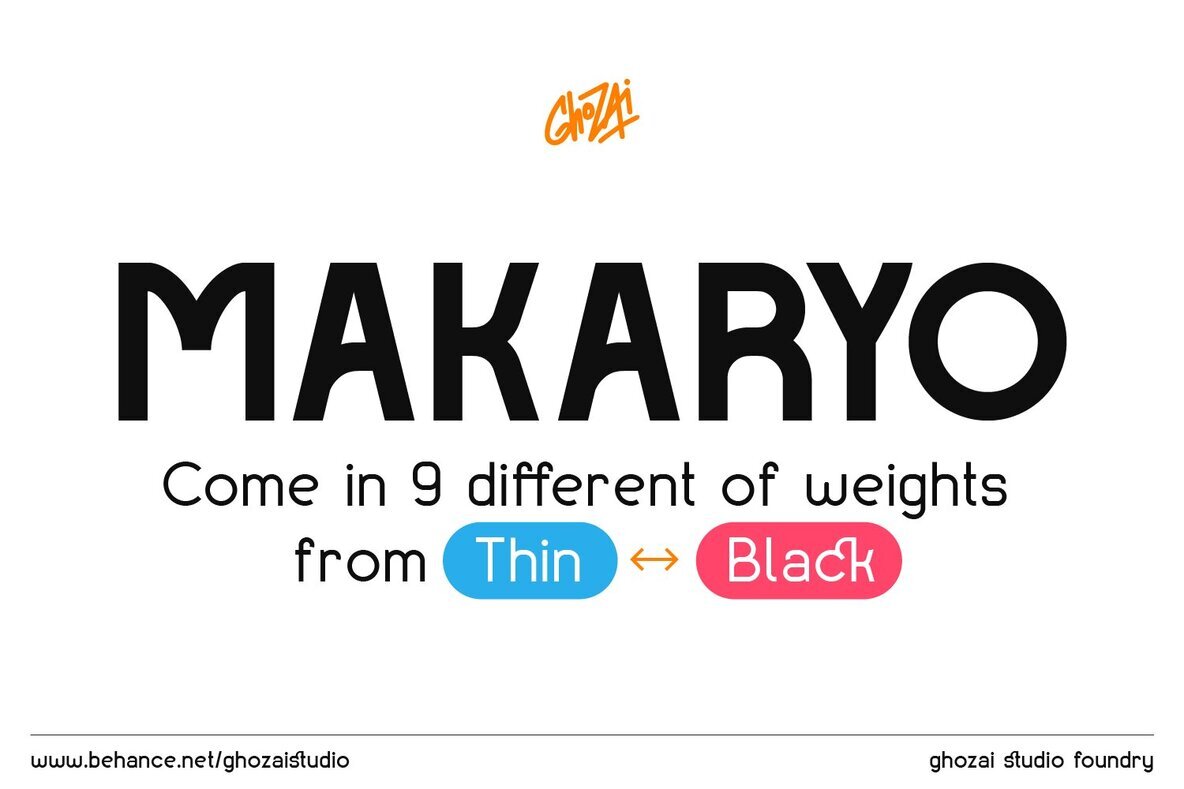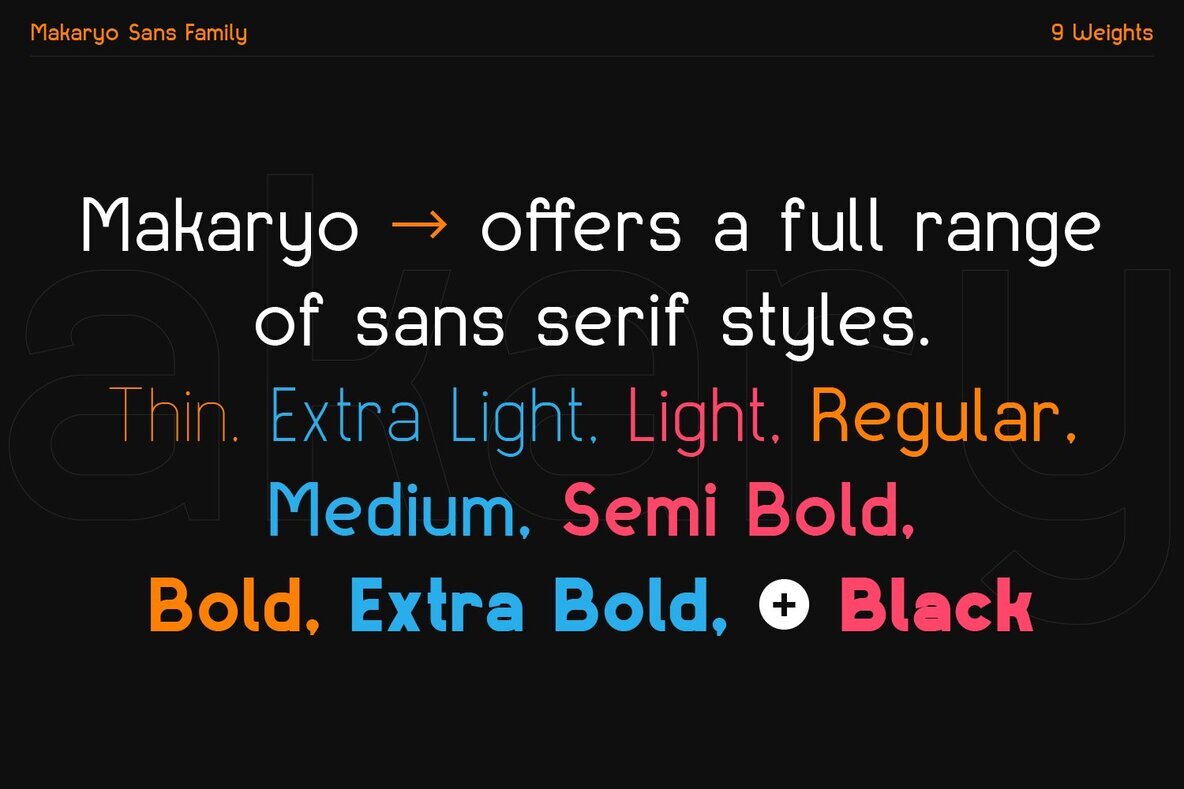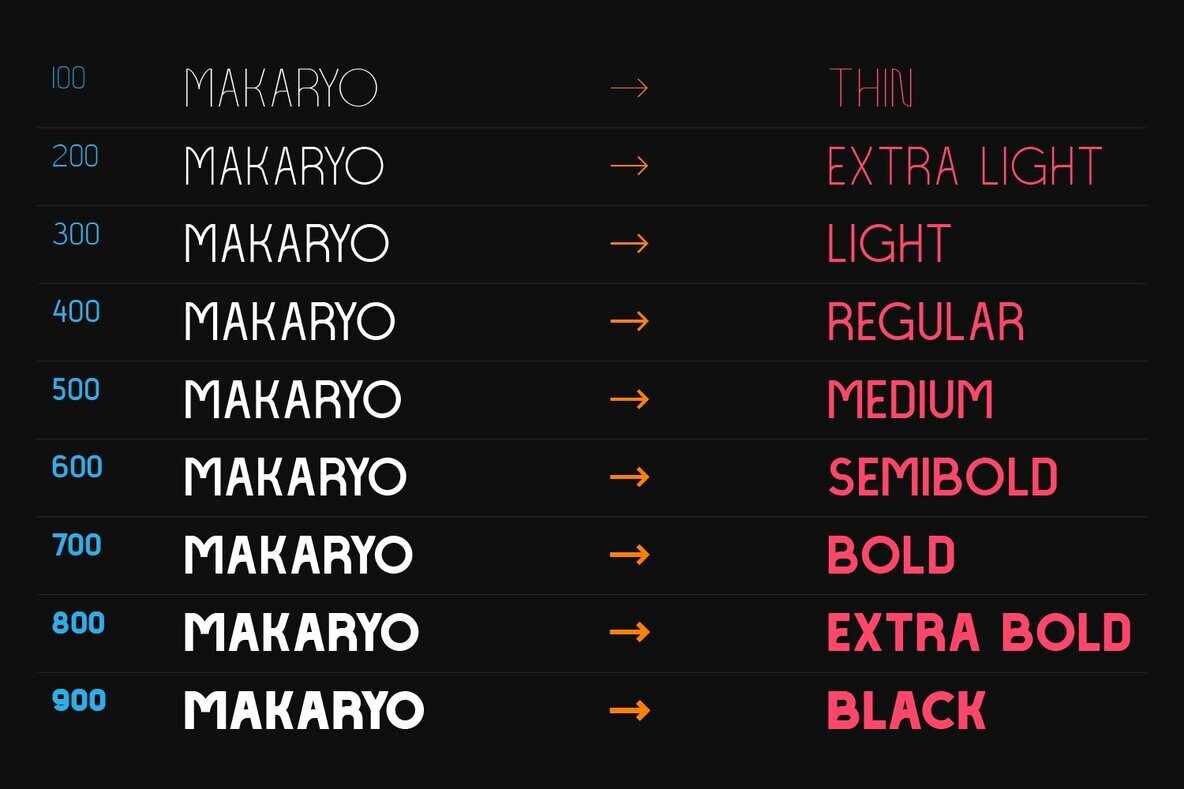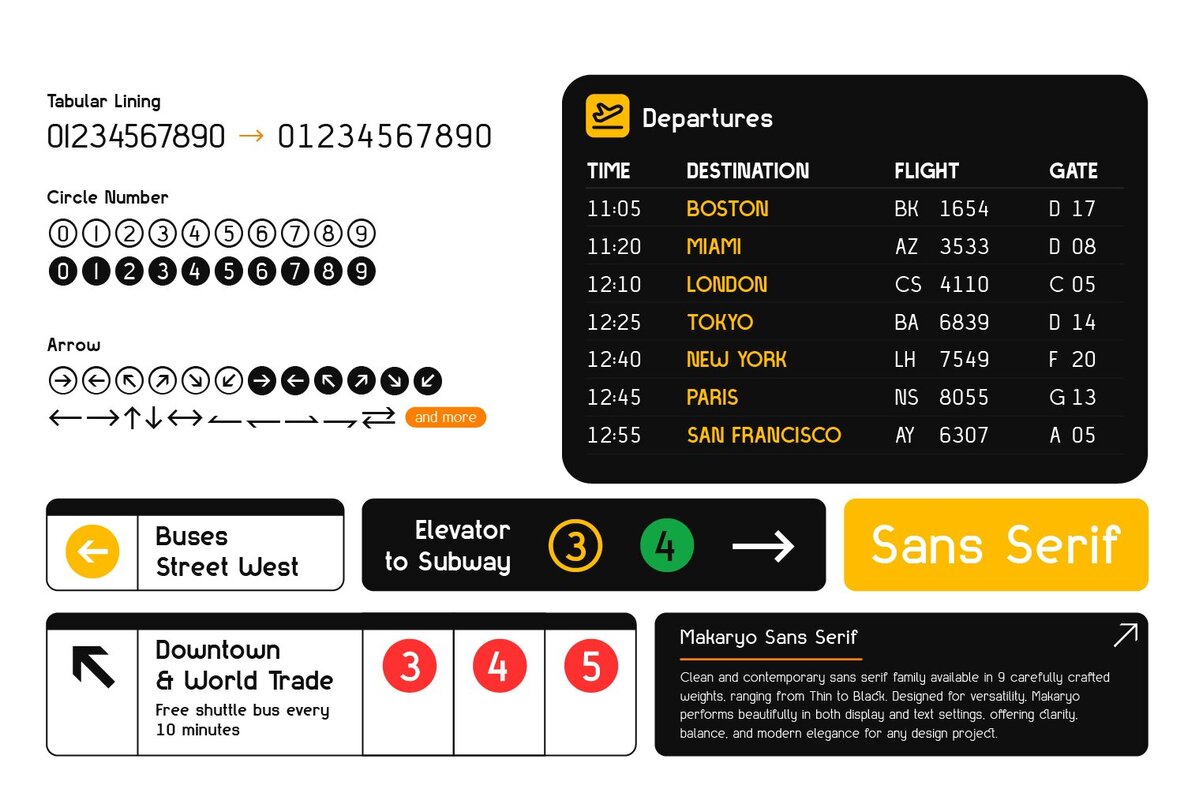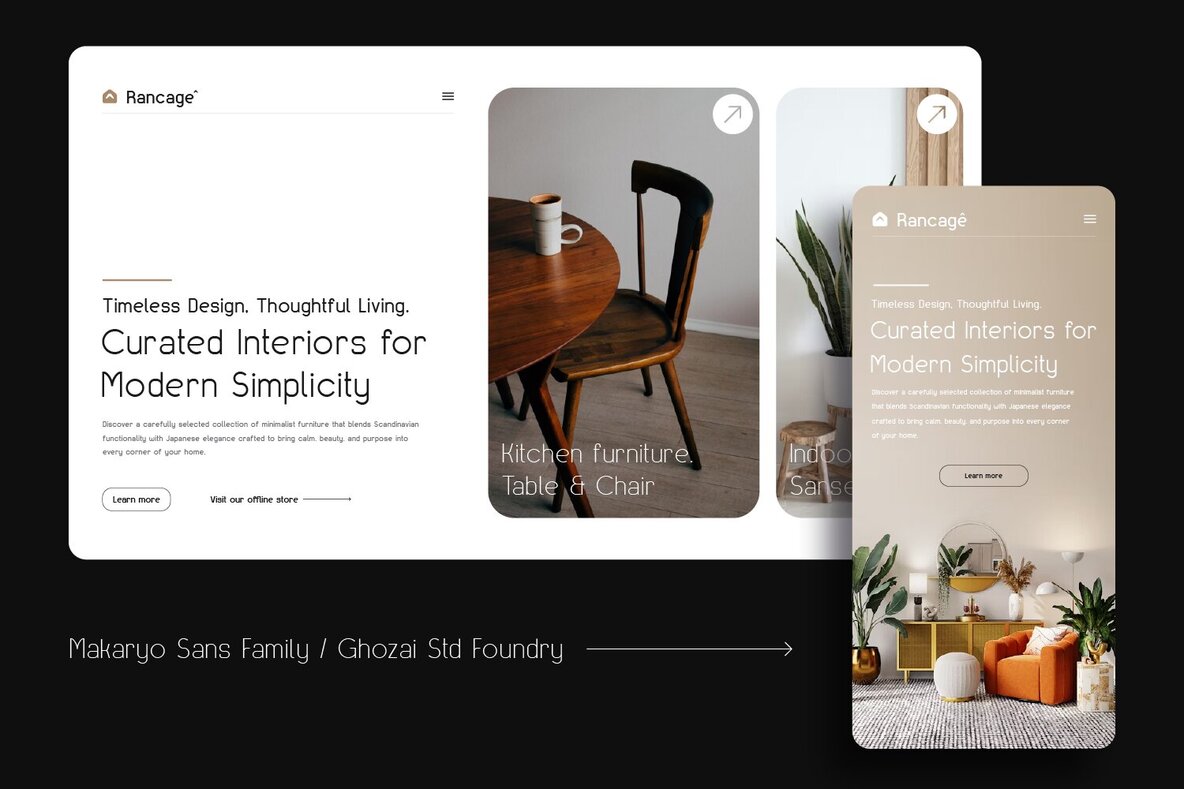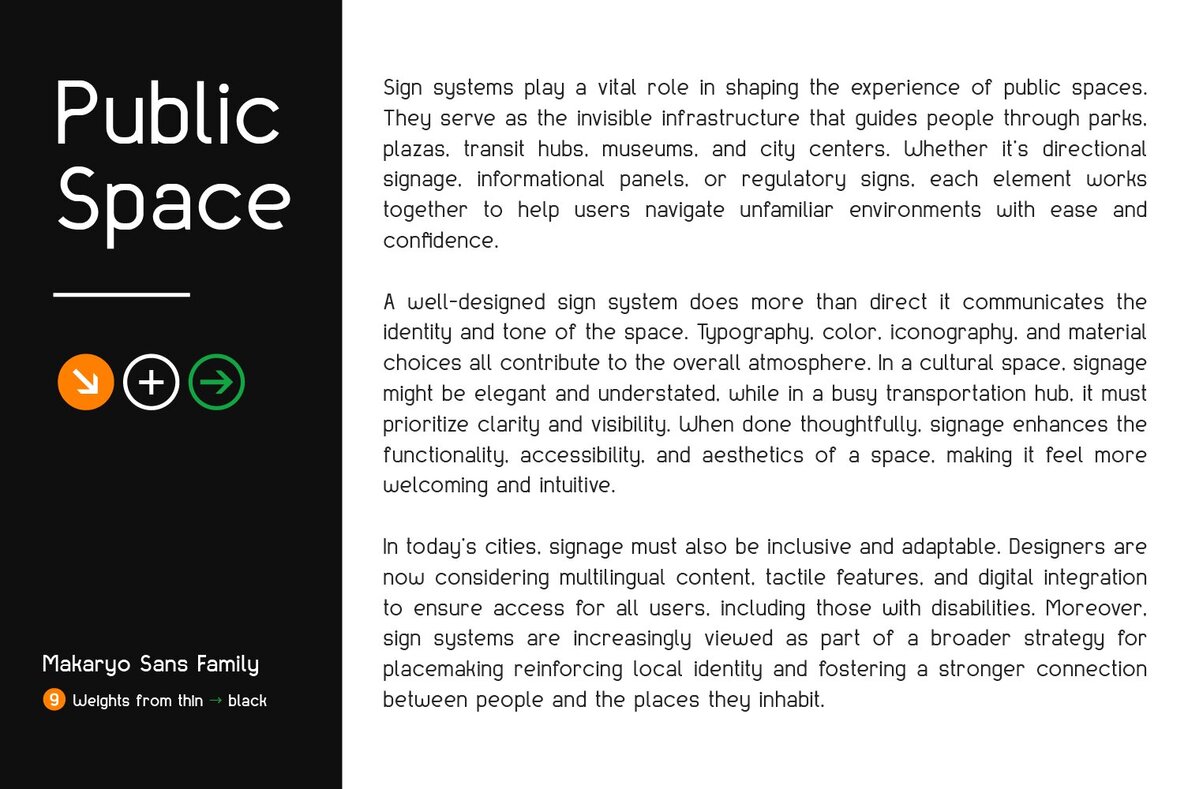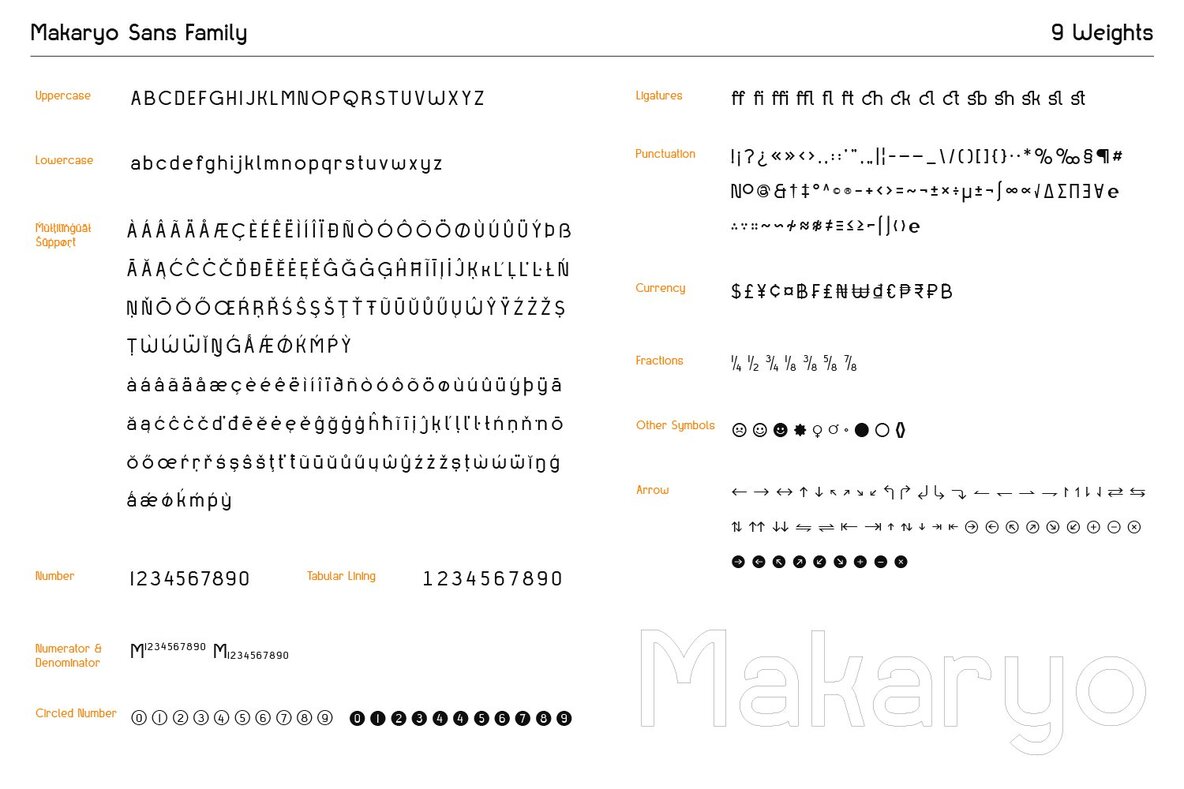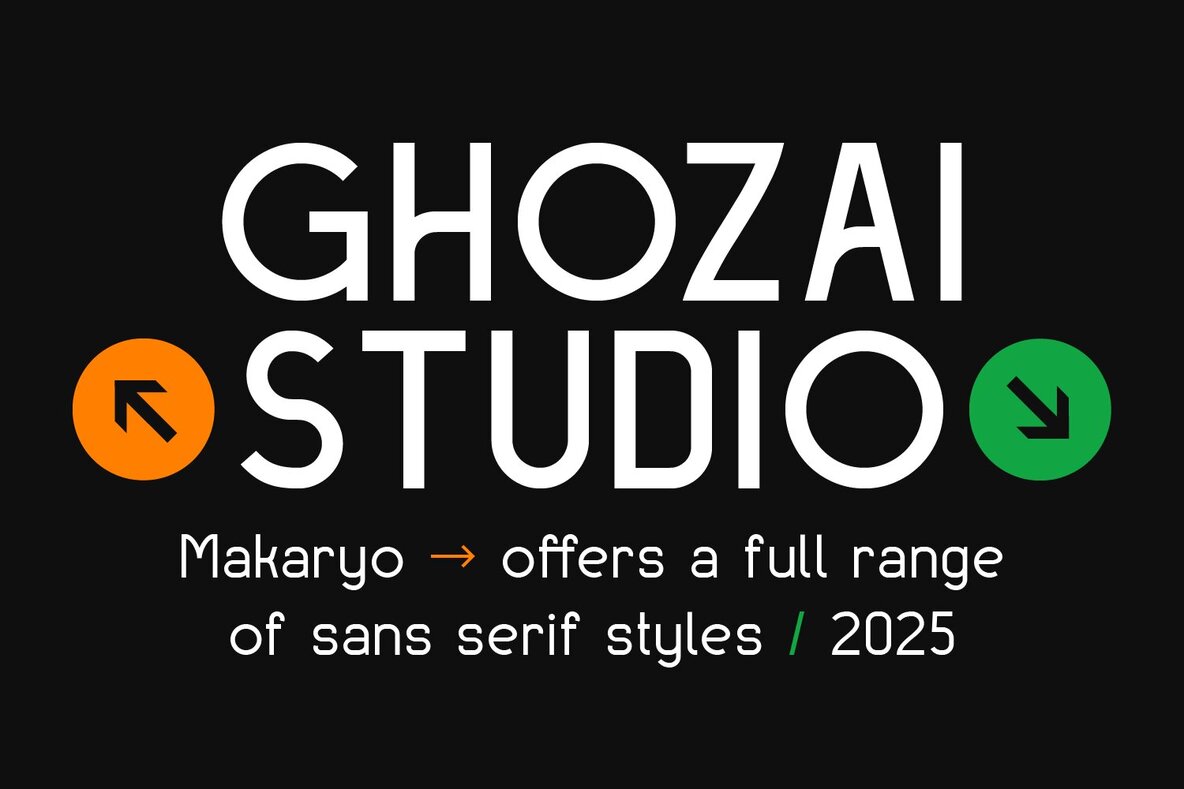
Makaryo Font
Makaryo is a dynamic font family that covers a breadth of design possibilities. Spanning nine weights from Thin to Black, it adapts to diverse project requirements effortlessly. Offering robust OpenType features, Makaryo ensures that your designs maintain multilingual compatibility and functionality. Its spectrum of weights is tailored for impactful headlines, energetic sports graphics, or precise signage, delivering the right tone every time. Characterized by its clean, contemporary aesthetic, Makaryo moves fluidly between prominent titles and subtle, refined text, whether it's deployed in print or digital platforms. Designers can rely on Makaryo to balance legibility with elegance, paving the way for inventive and memorable creations.Makaryo: Versatile Font Family for Global Design Needs